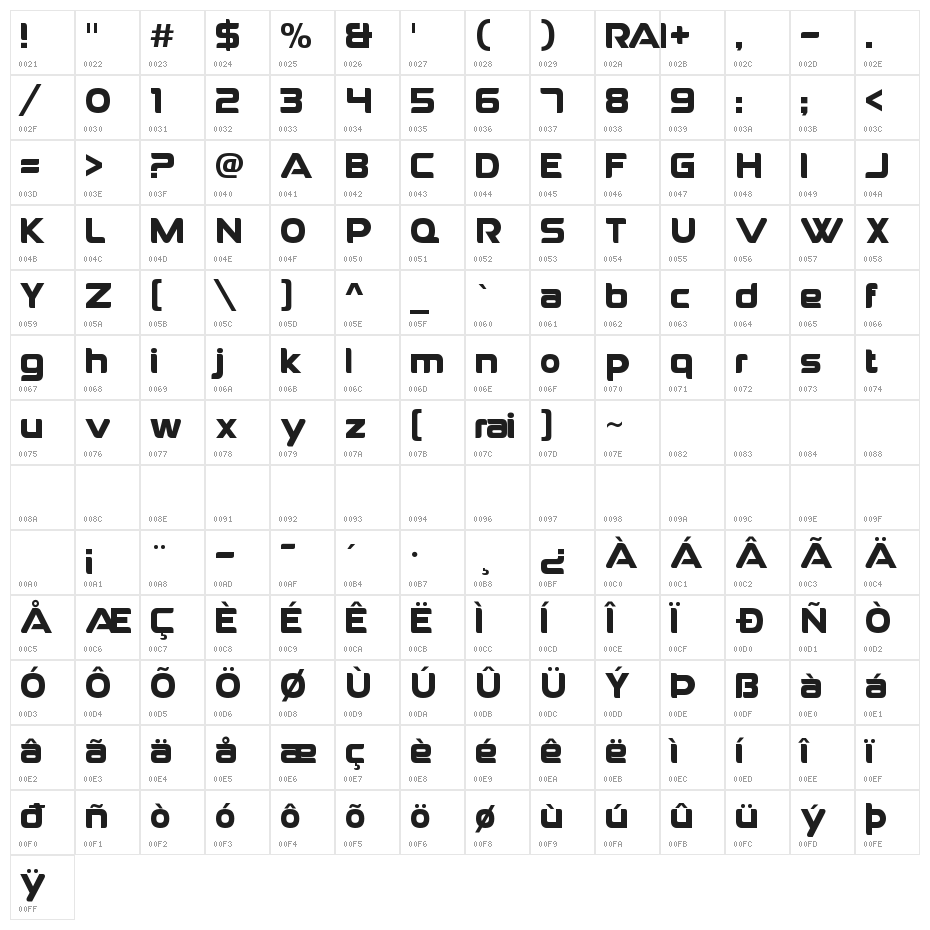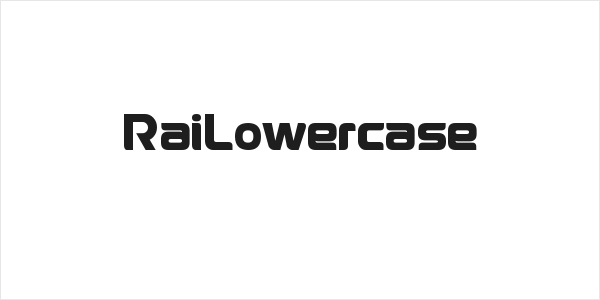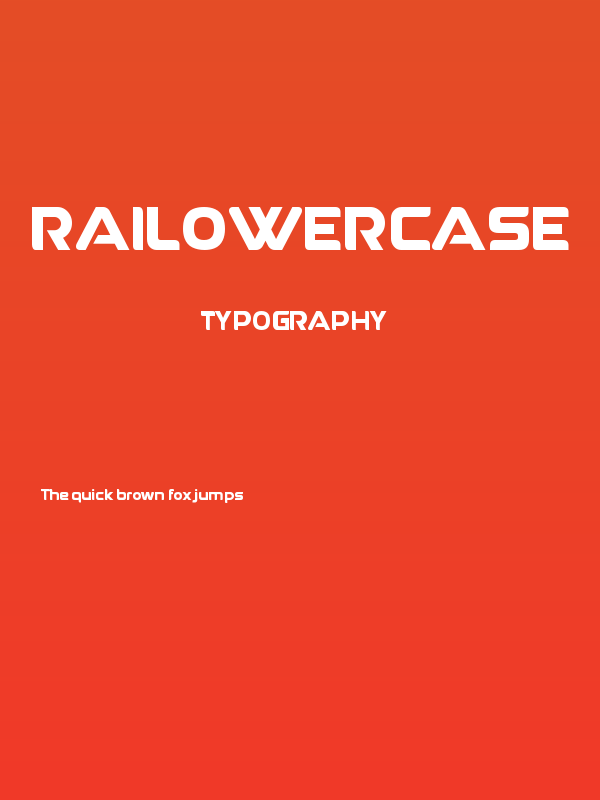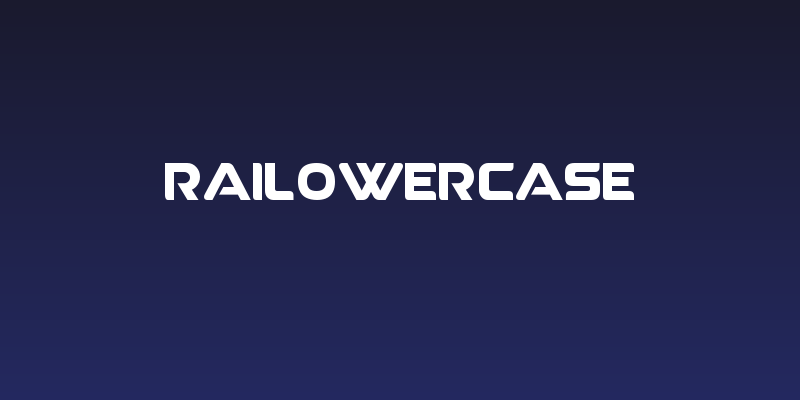
RaiLowercase Font
RaiLowercase Description
This font features a bold, modern design with smooth, rounded edges and a geometric structure. The uppercase letters are uniform in height, creating a cohesive and balanced appearance. The lowercase letters maintain a similar style, with consistent stroke widths and rounded terminals that enhance readability. The numerals are distinct and align well with the overall design, making them suitable for various applications. Special characters are included, matching the font's clean and contemporary aesthetic.
Use CaseHeadlines, Logos, Branding
Proposed ProjectsIdeal for branding, advertising, and digital media projects where a modern and bold statement is needed.